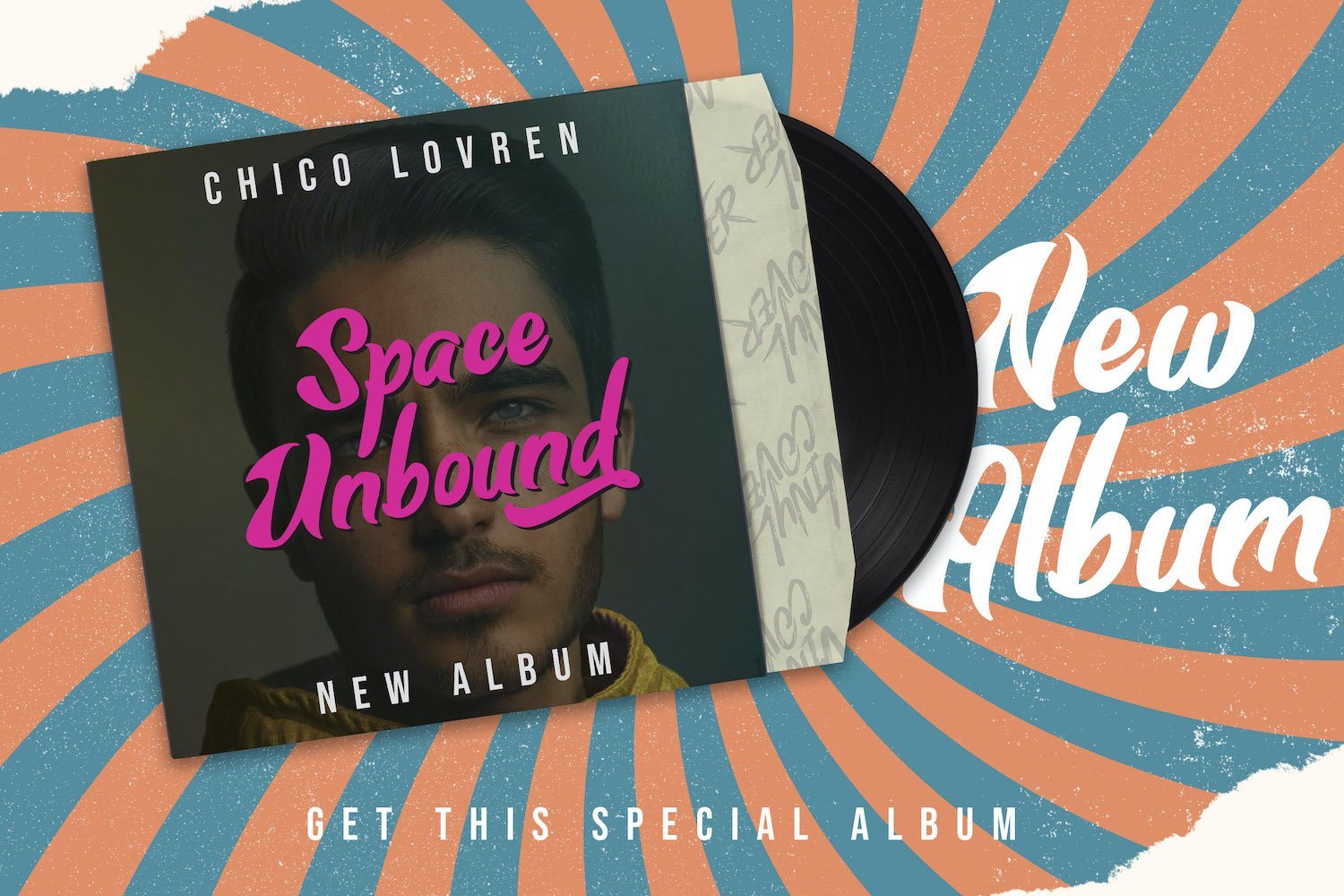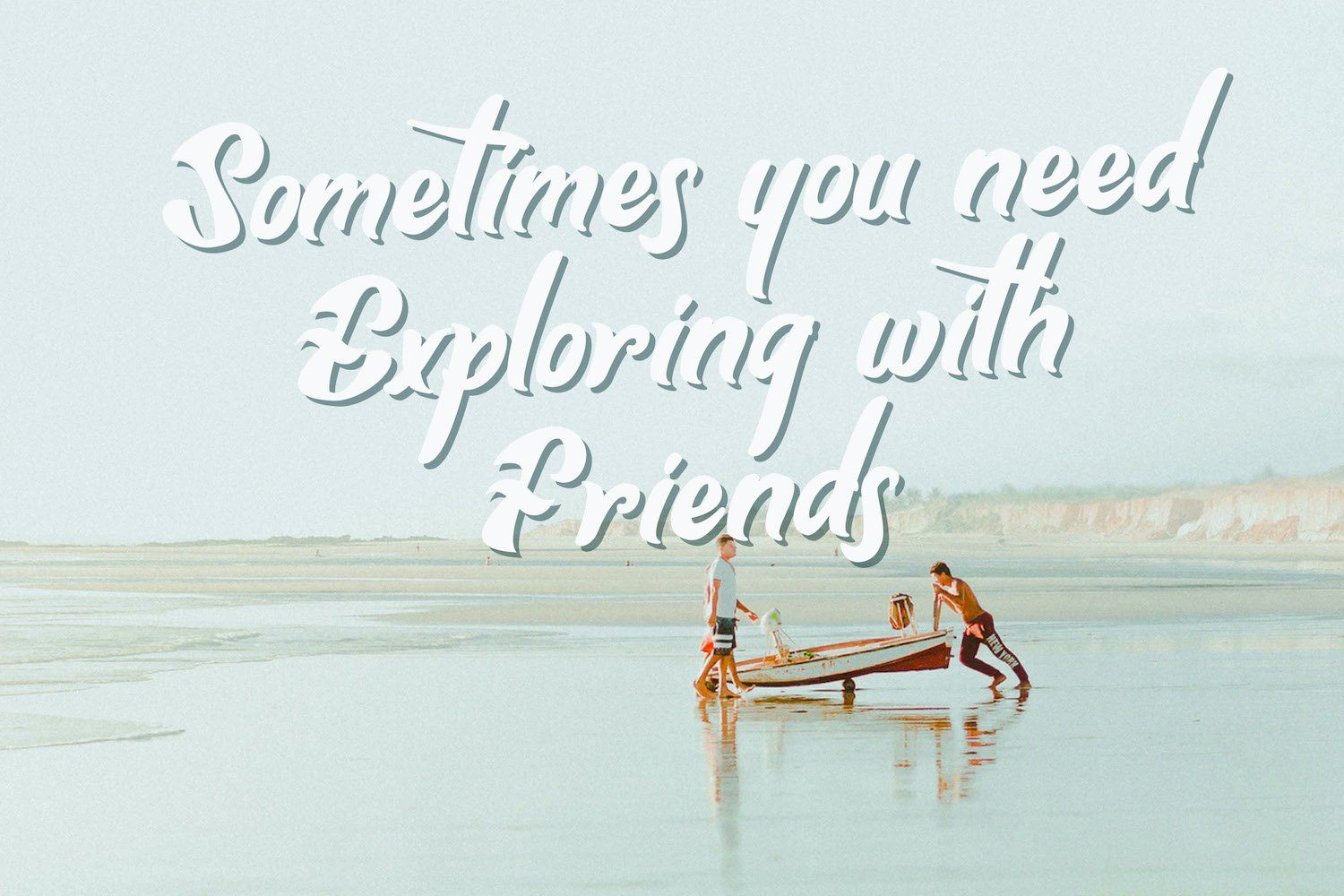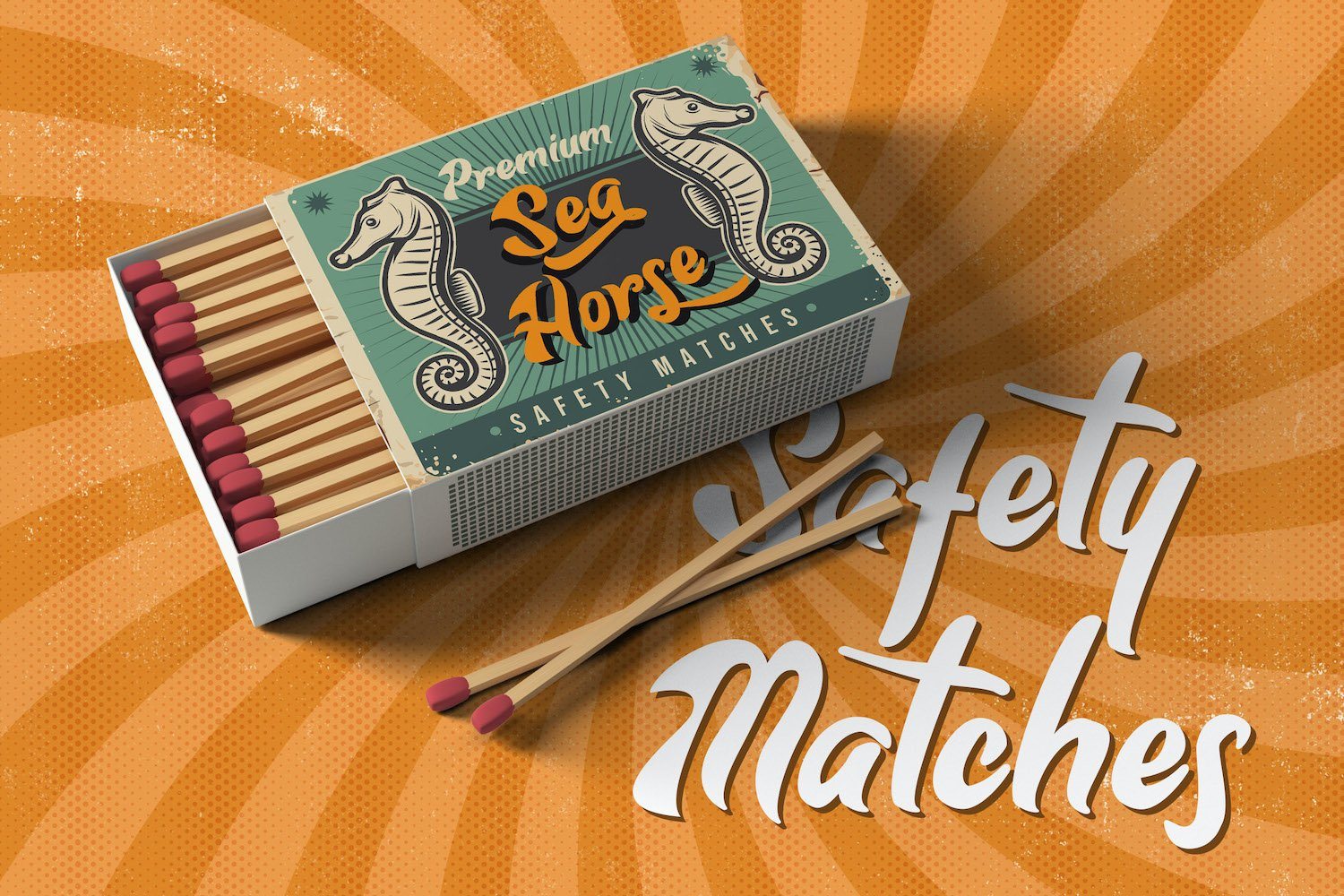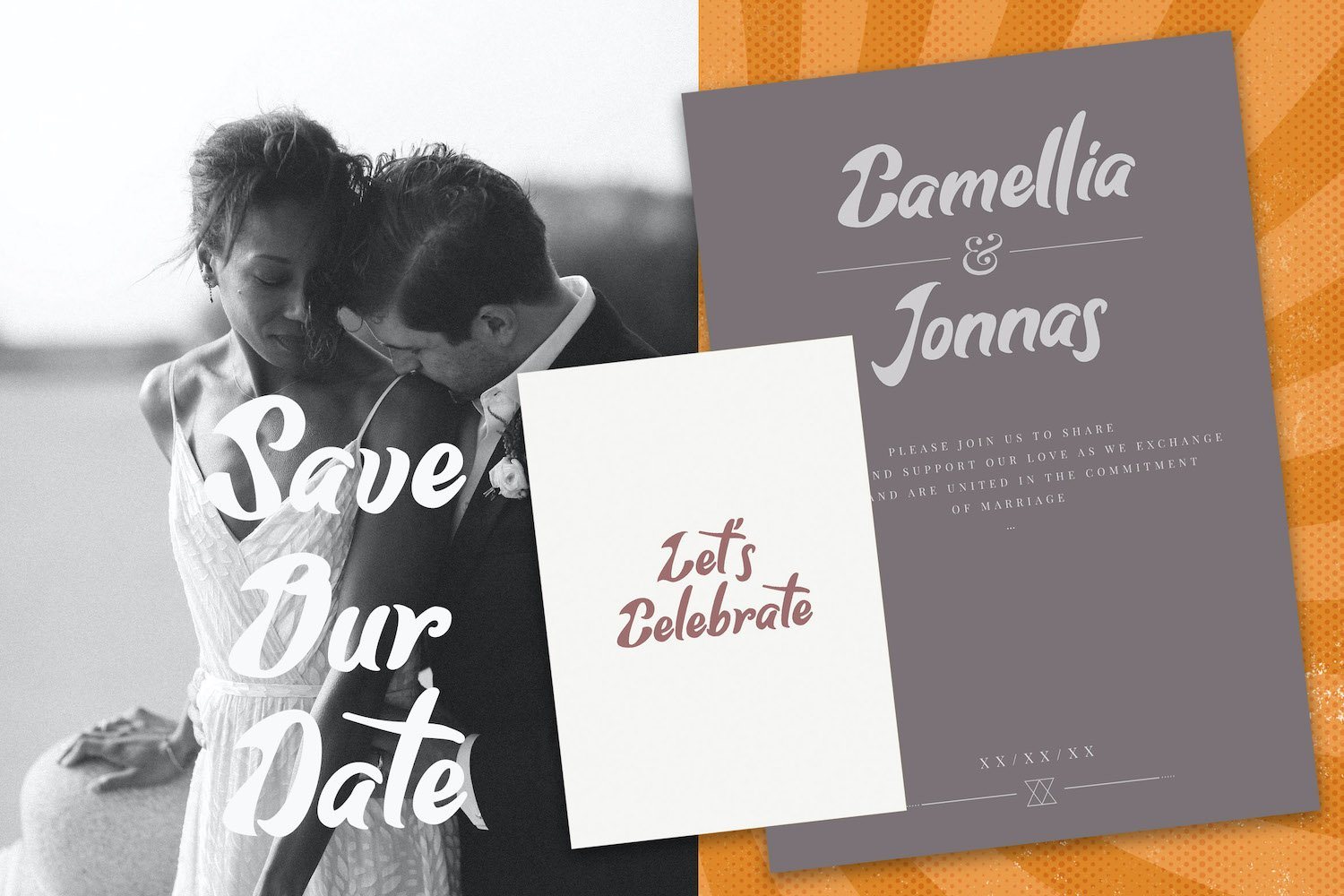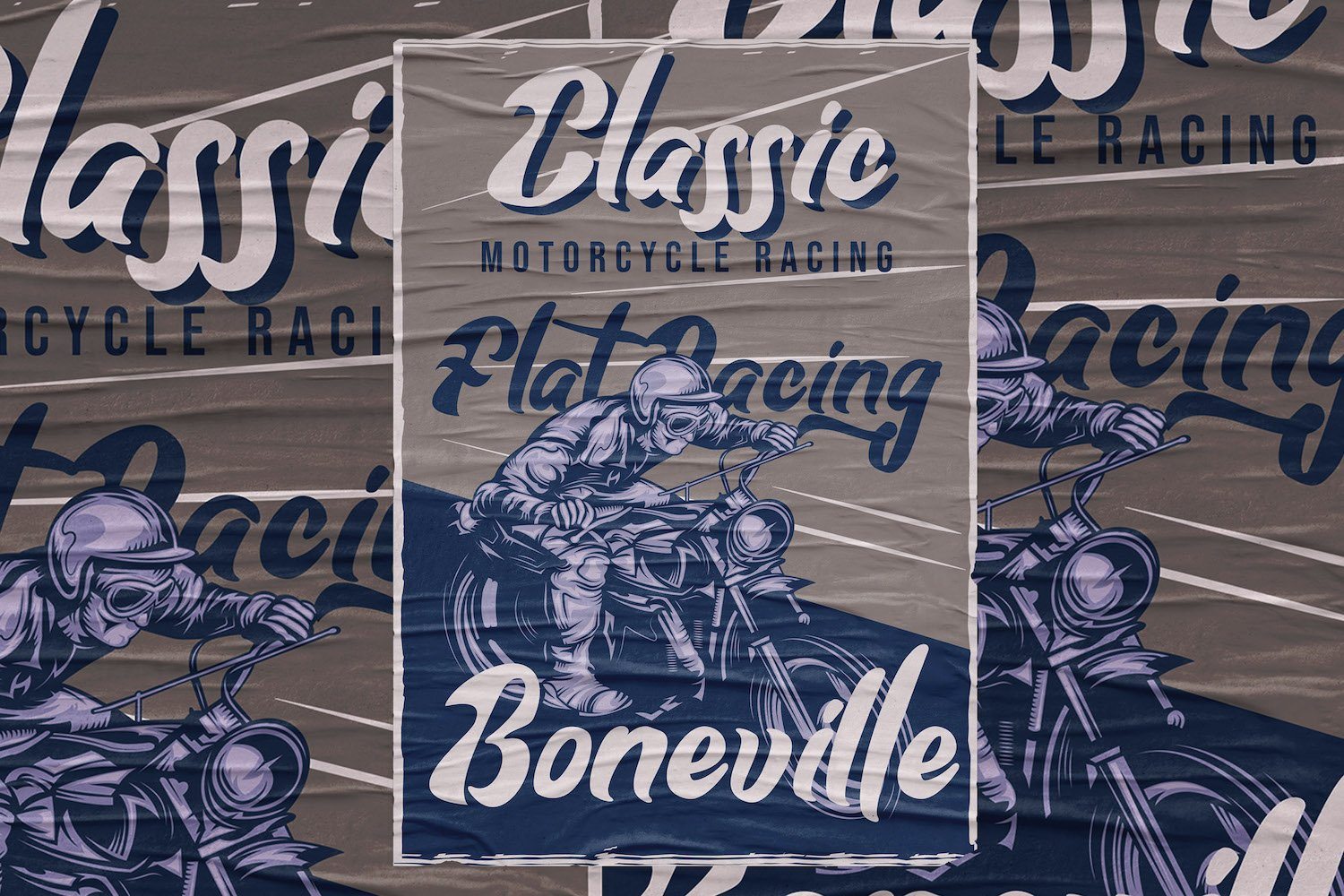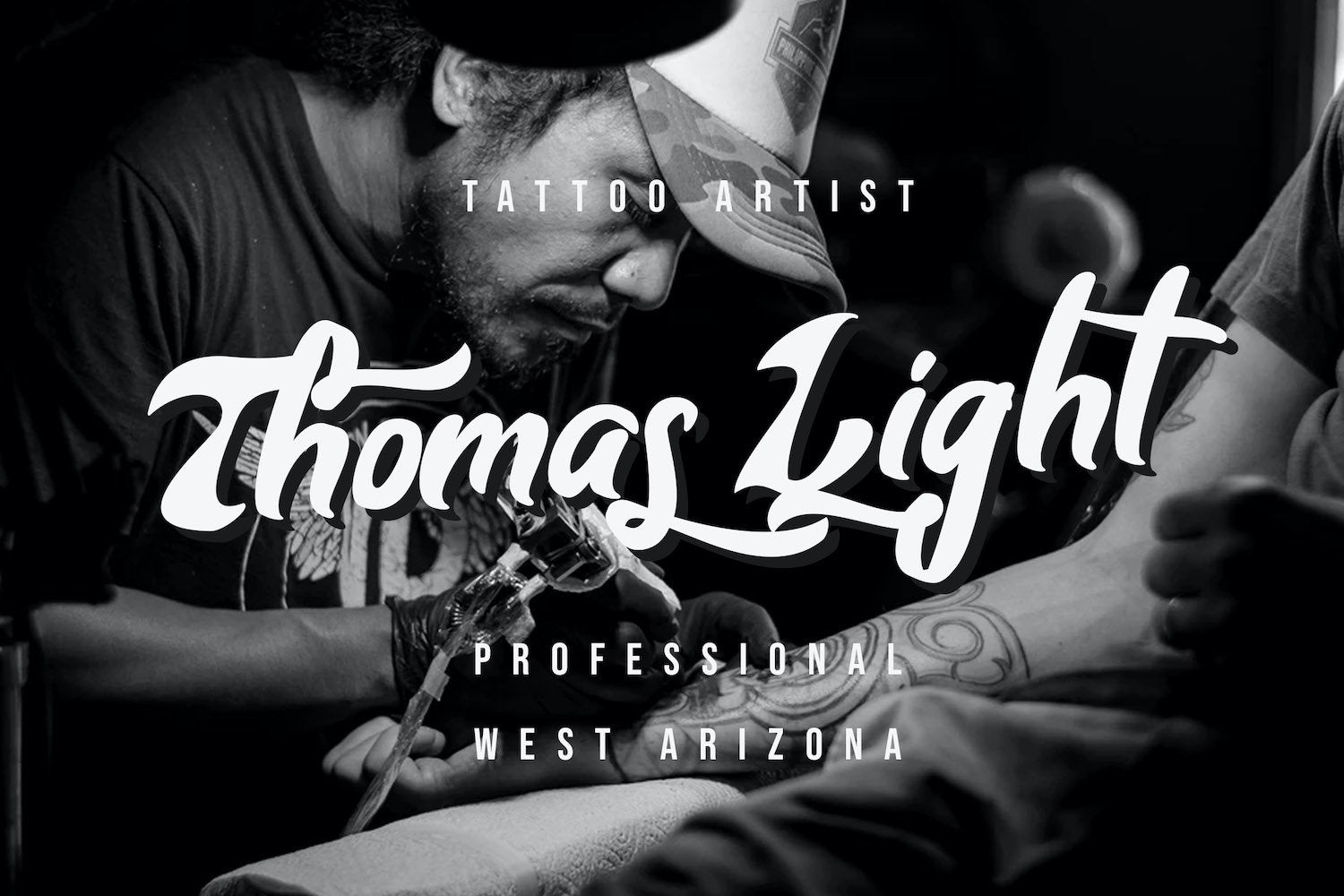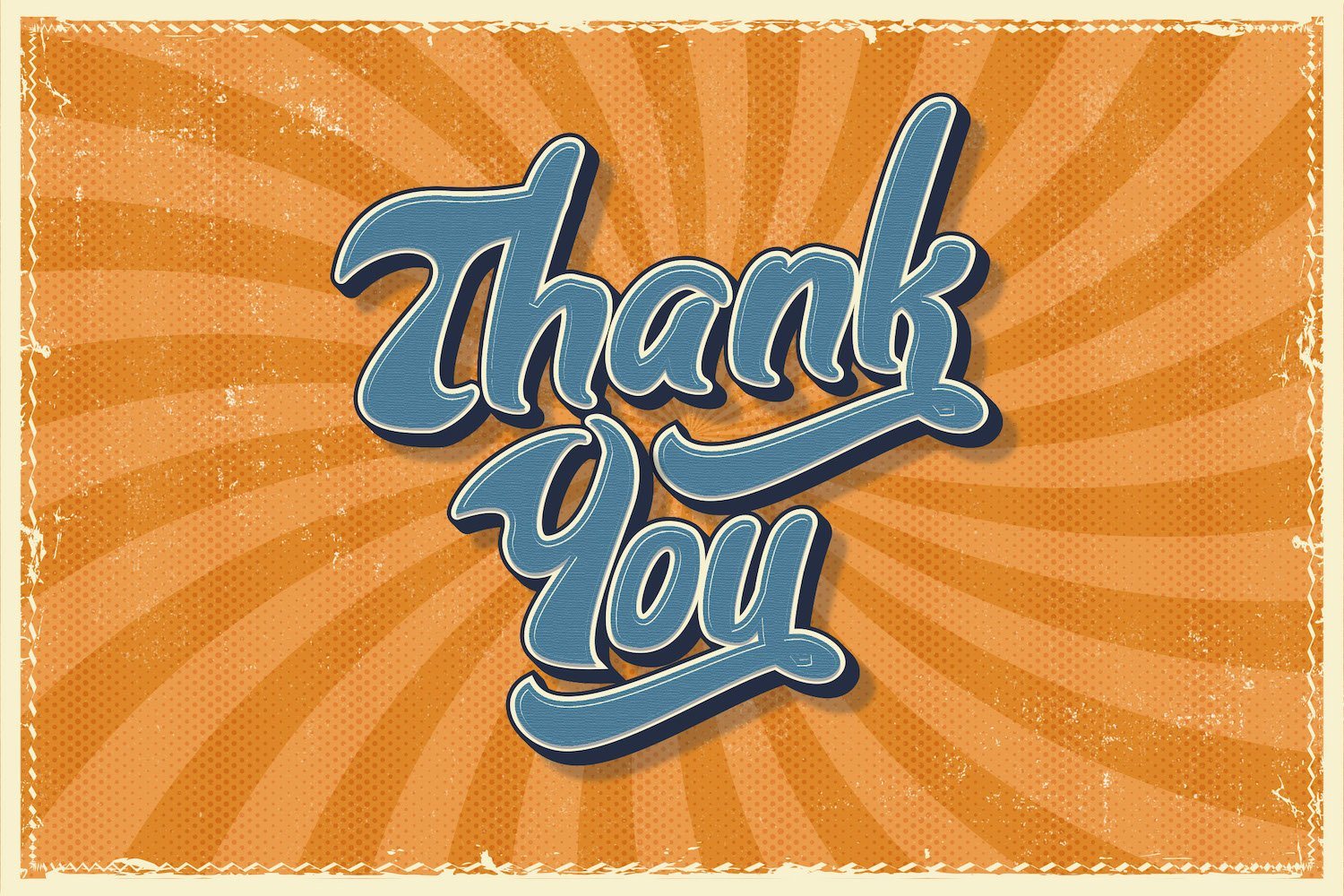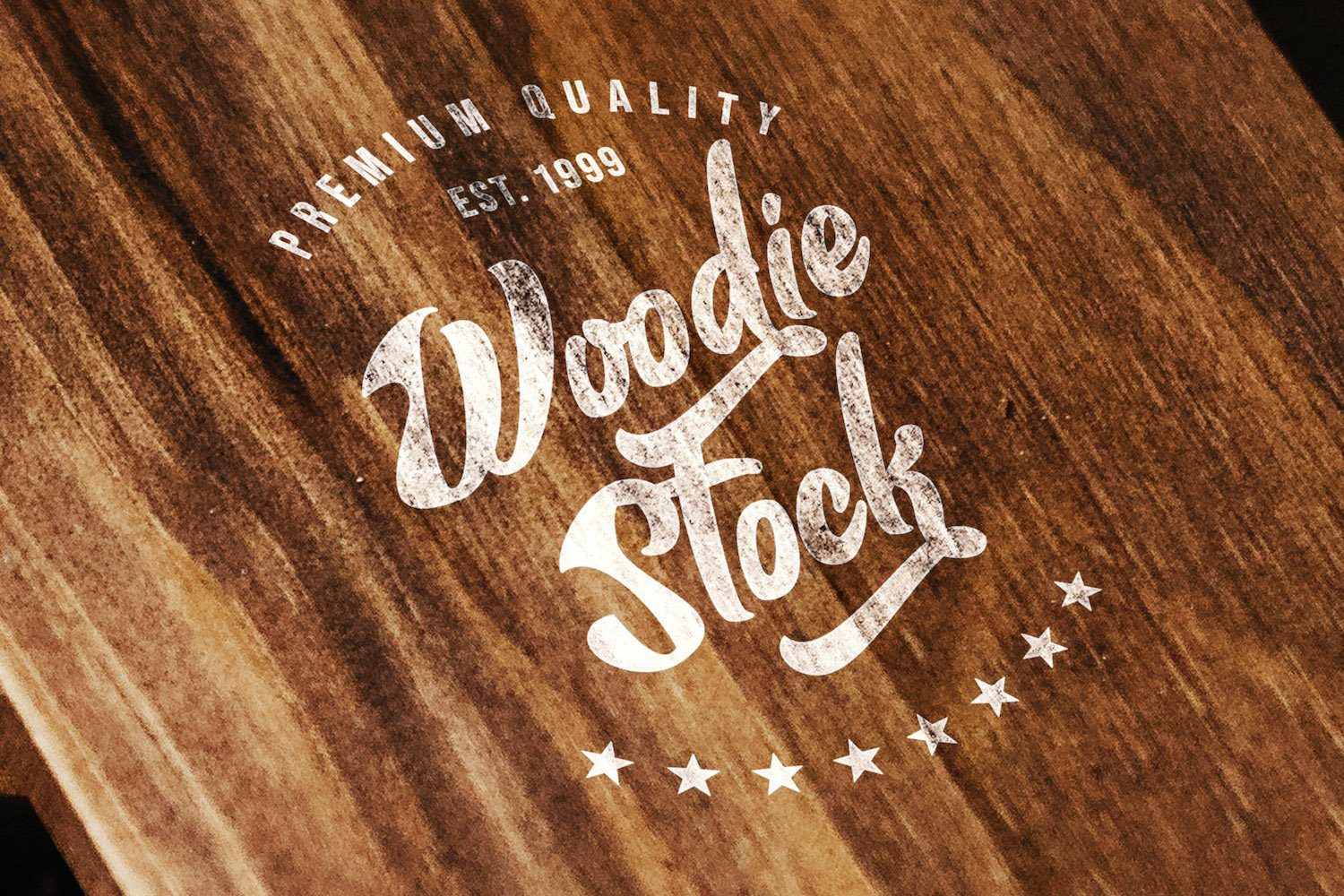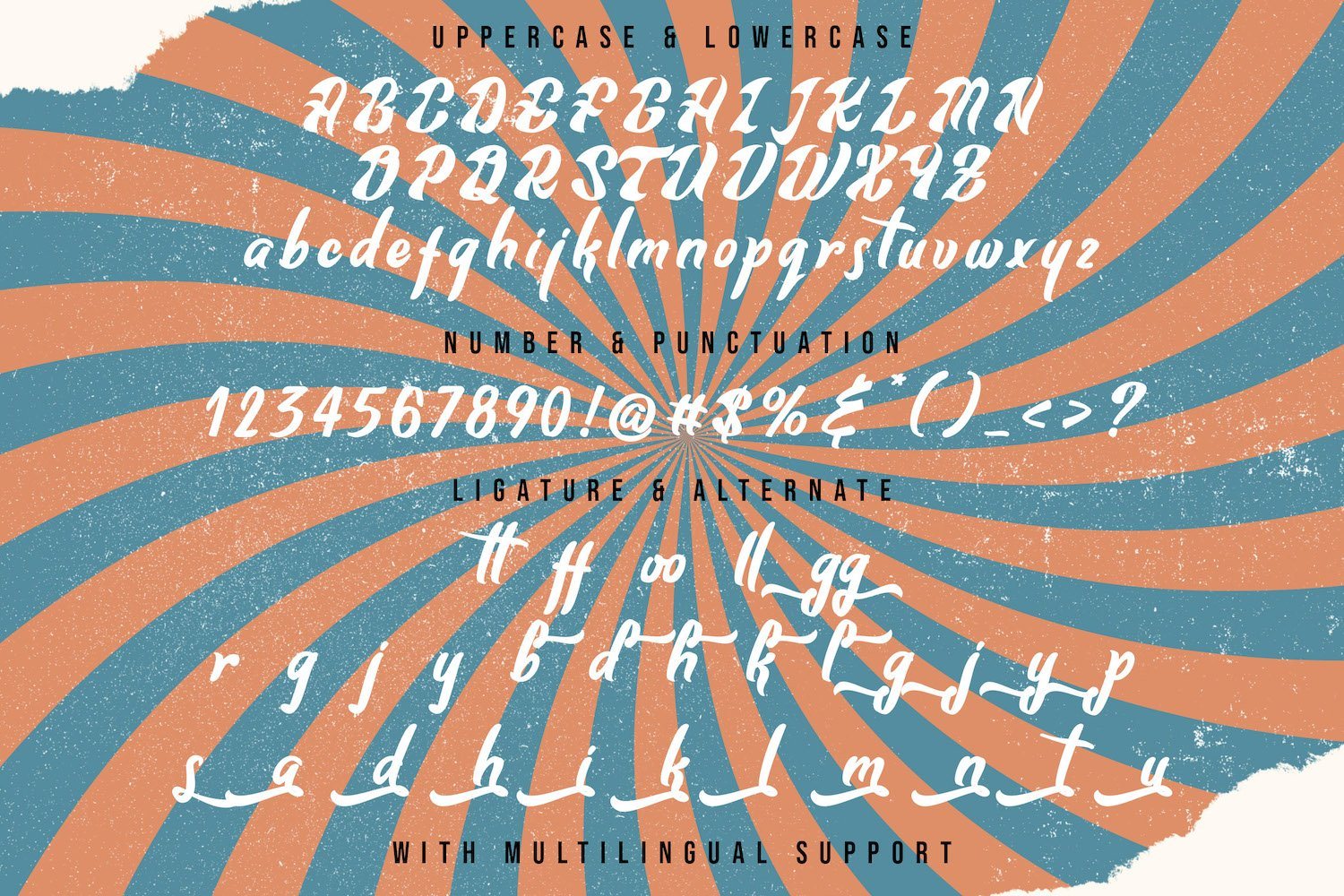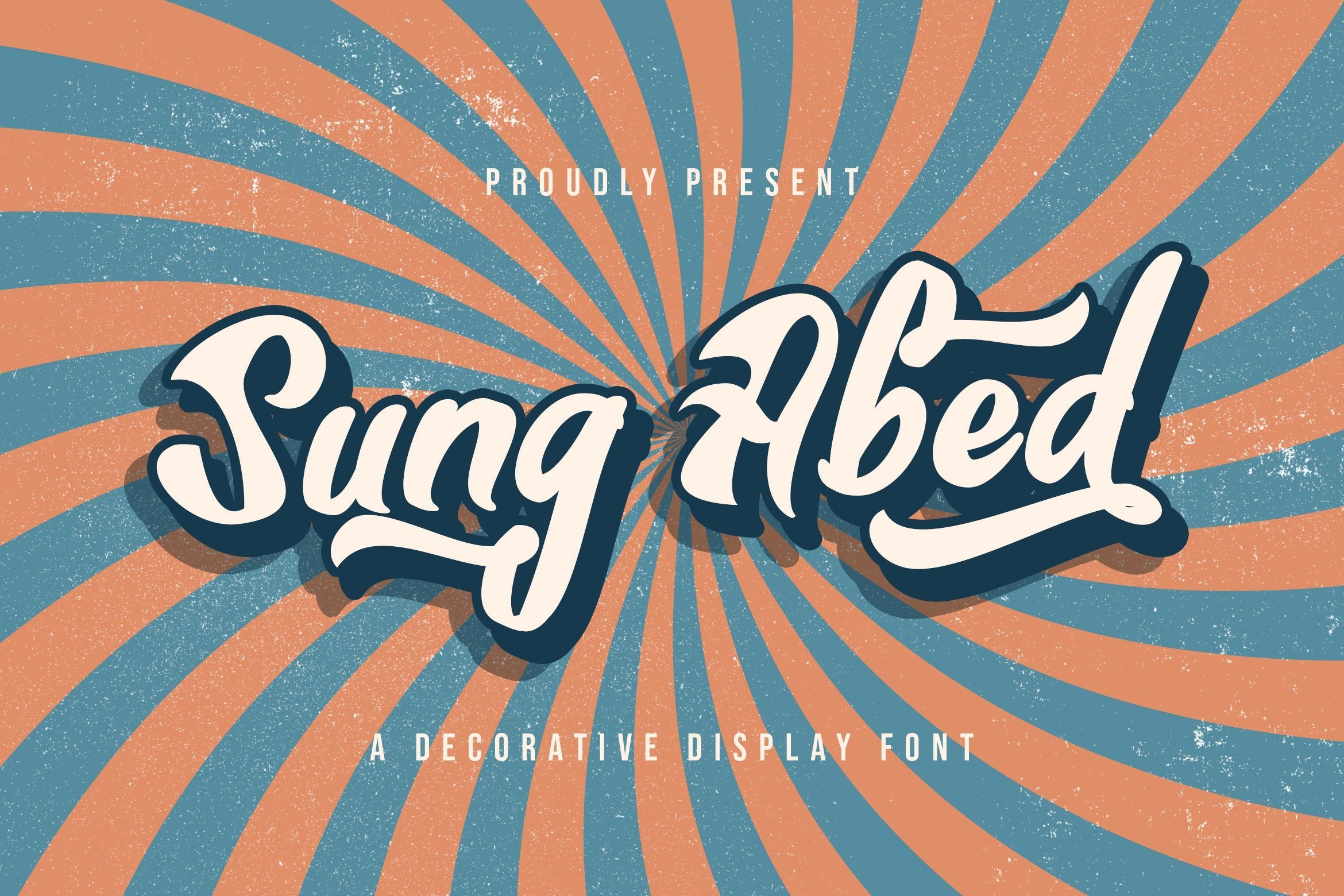
Sung Abed – Decorative Display Font
About Sung Abed – Decorative Display Font
Introducing Sung Abed – Decorative Display Font Sung Abed is a unique, stylish and elegant decorative font. This typeface will look truly outstanding in a wide range of contexts. FEATURES – TTF/OTF/WOFF/WOFF2 – Alternates – Ligatures – Uppercase and Lowercase letters – Numbering and Punctuations – Multilingual Support – Works on PC or Mac – Simple Installation – Support Adobe Illustrator, Adobe Photoshop, Adobe InDesign, also works on Microsoft Word Hope you Like it. Thanks.